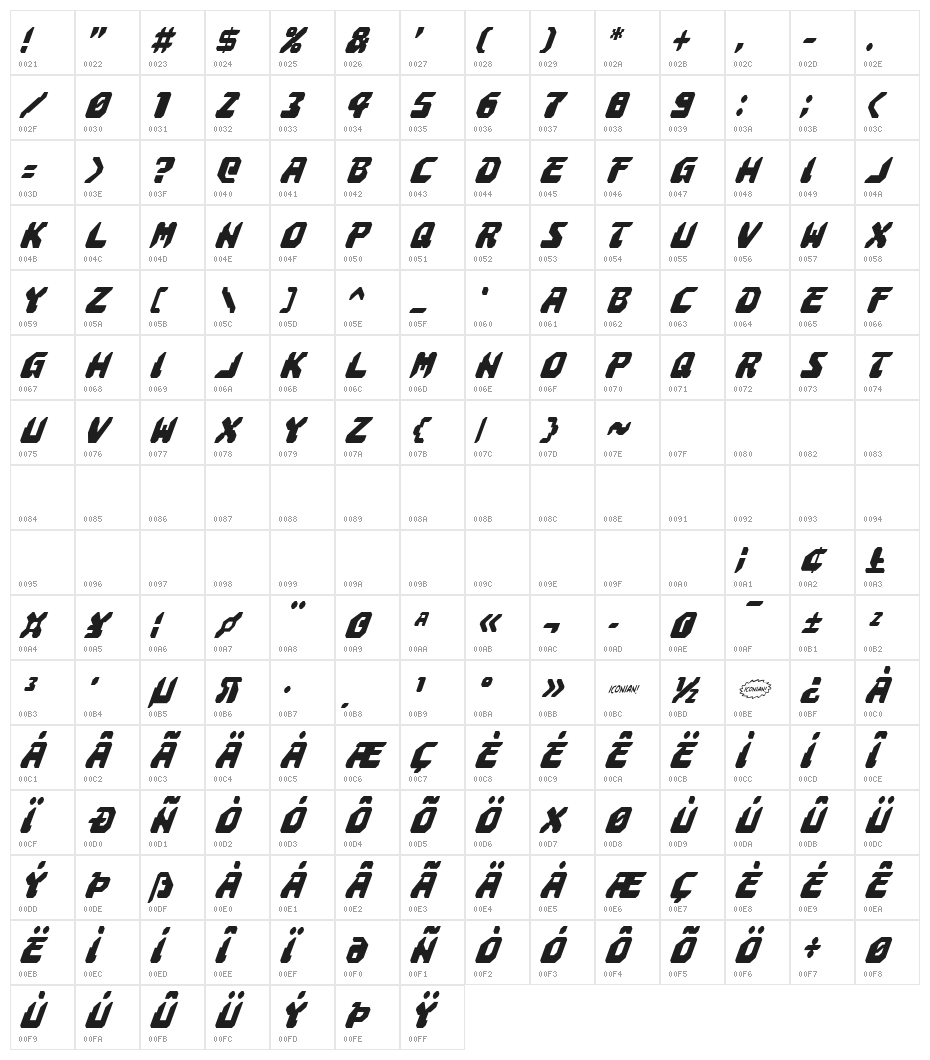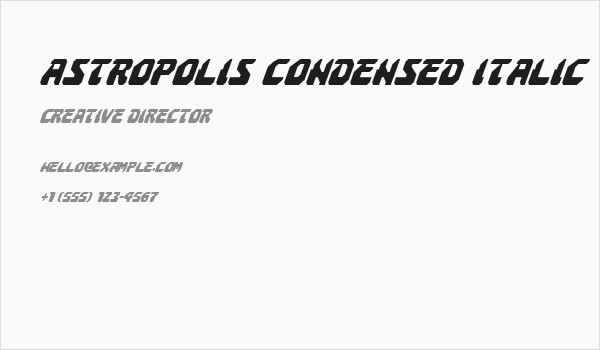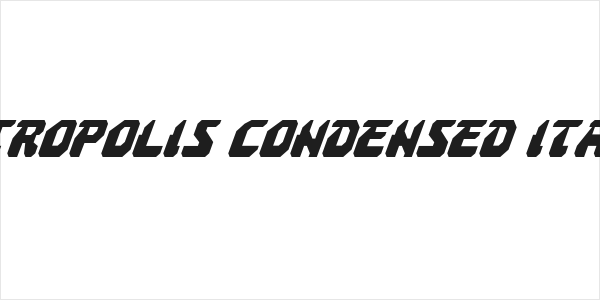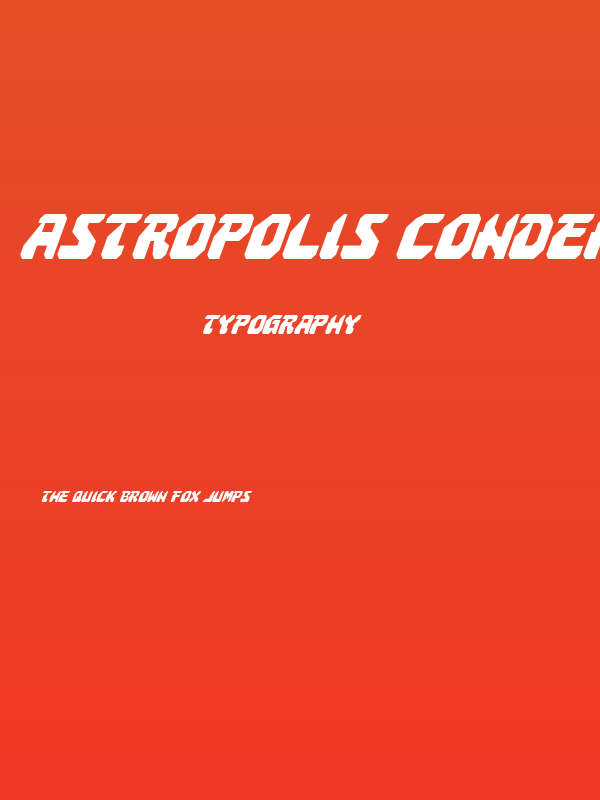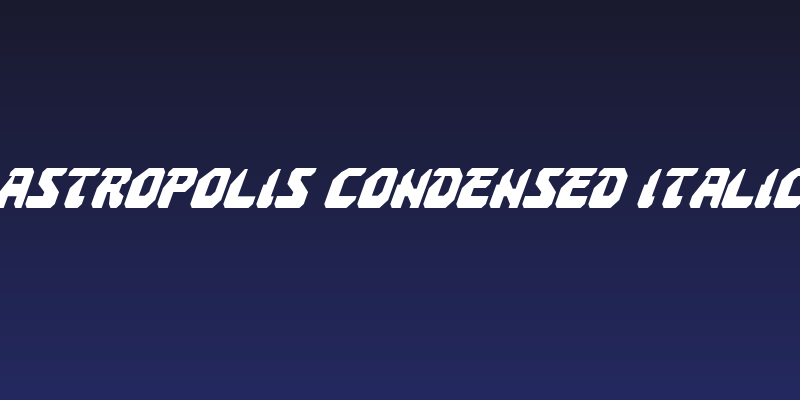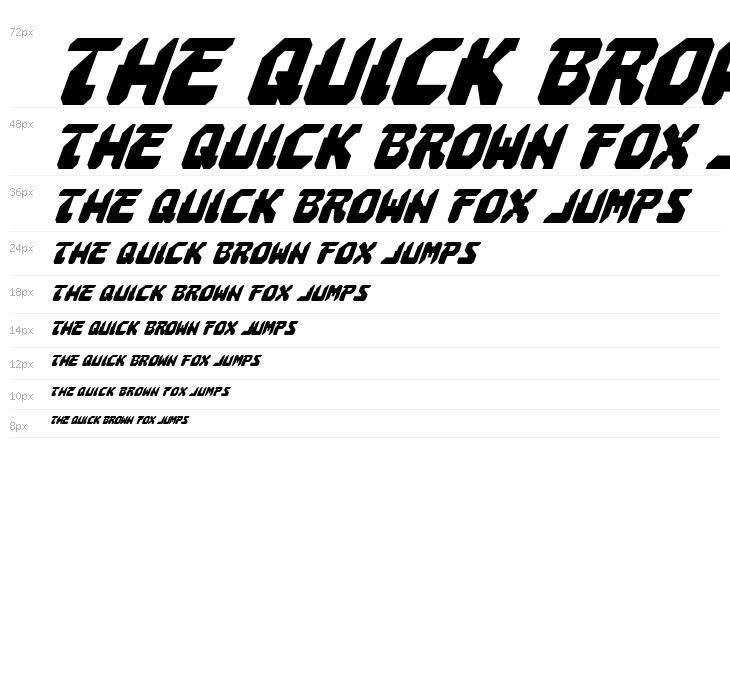
Astropolis Condensed Italic Font
Astropolis Condensed Italic Description
This font features a bold, italicized style with a futuristic and dynamic appearance. The characters are condensed, giving them a compact look, while maintaining a strong presence. The angular design and sharp edges contribute to its modern and edgy feel. The uppercase and lowercase letters are consistent in style, with a slight slant that enhances the italic effect. Numbers and special characters are designed to match the overall aesthetic, ensuring uniformity across all elements. This font is ideal for projects that require a bold statement and a contemporary touch.
| Proposed Projects | Ideal for sci-fi themed designs, video game titles, tech branding, and dynamic posters. |